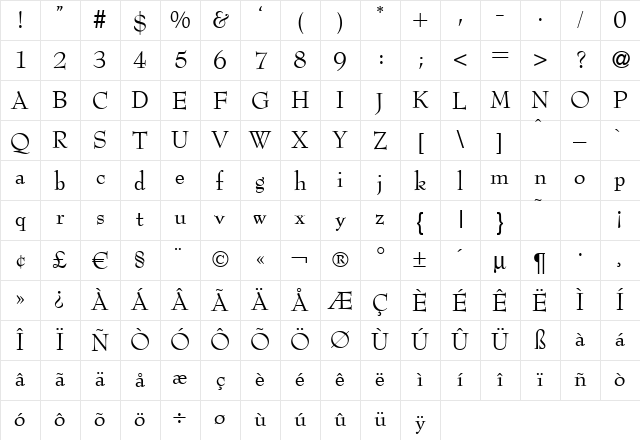
BernhardModern Regular
Complete BernhardModern Regular glyph index. Displaying only characters natively supported by BernhardModern Regular font.
Design Context for BernhardModern
BernhardModern is a composed and adaptable typeface that performs quietly and consistently across a wide range of design contexts.